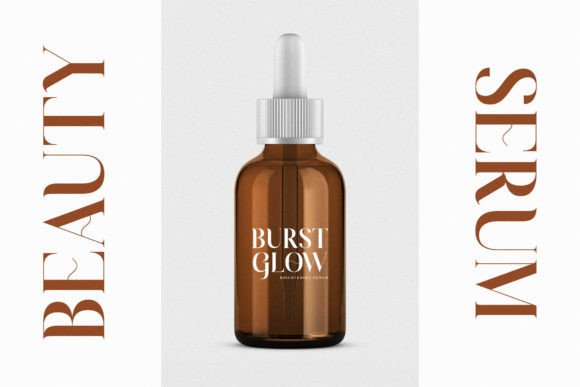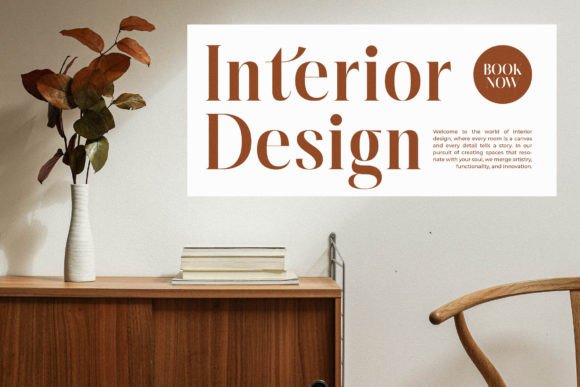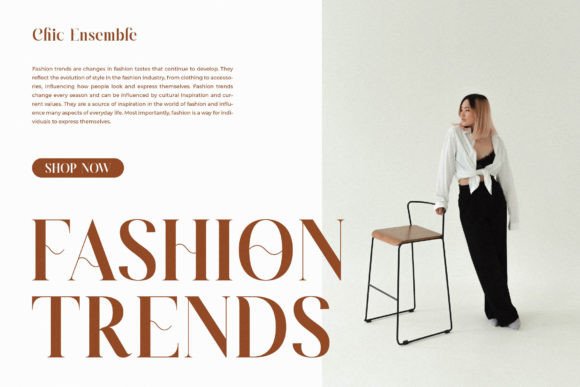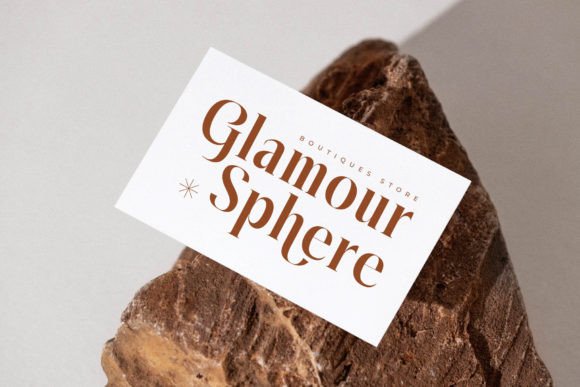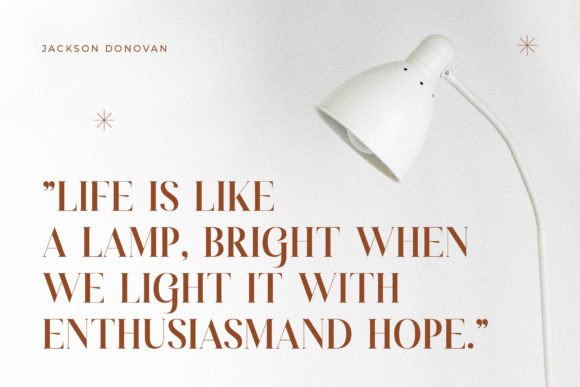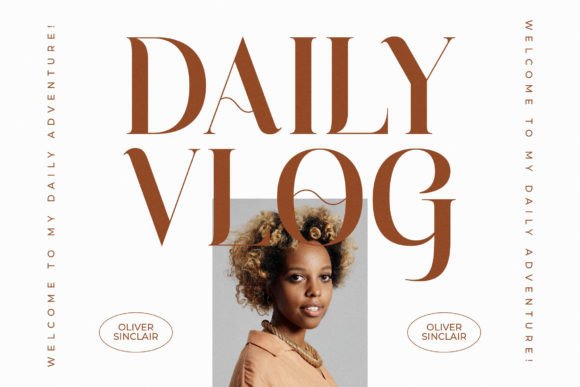
The Glanity Font: Elevate Your Designs with Luxury Serif Elegance
I’ll never forget the time I was working on a high-end branding project for a luxury homeware client. I had spent hours perfecting the logo design, but something felt off. The font I had chosen just wasn’t conveying the level of sophistication and elegance the client was looking for. That’s when I stumbled upon the Glanity font, a modern serif font from Letterena that would change the game for my design.
An Honest Review of Glanity Font
What I Love About Glanity ✨
- 💯 Versatility: Glanity is suitable for a wide range of projects, from logos and branding to packaging, posters, and even t-shirts.
- 📚 Highly legible: The font’s serif design makes it easy to read, even at small sizes.
- 🎨 Stunning OpenType features: Glanity comes with a range of stylistic alternates, glyphs, and ligatures that can add an extra layer of creativity to your designs.
- 👍 Luxury feel: The font exudes a sense of sophistication and elegance, perfect for high-end projects.
While Glanity is an excellent font, there are a few things to keep in mind:
- 🤔 Limited free alternatives: As a premium font, Glanity doesn’t have many free alternatives that can match its quality.
- ⚠️ Pay attention to font size: While highly legible, Glanity can look a bit thin at very small sizes.
The Story Behind Glanity Font
Glanity was designed by Letterena, a talented type designer with a passion for creating luxurious, elegant fonts. Inspired by the world of high-end fashion and luxury goods, Glanity was crafted to bring a touch of sophistication to any design project.
Q: What is Glanity font best used for?
A: Glanity is suitable for a wide range of projects, including logos, branding, packaging, posters, and more.
Q: Does Glanity support OpenType features?
A: Yes, Glanity comes with a range of OpenType features, including stylistic alternates, glyphs, and ligatures.